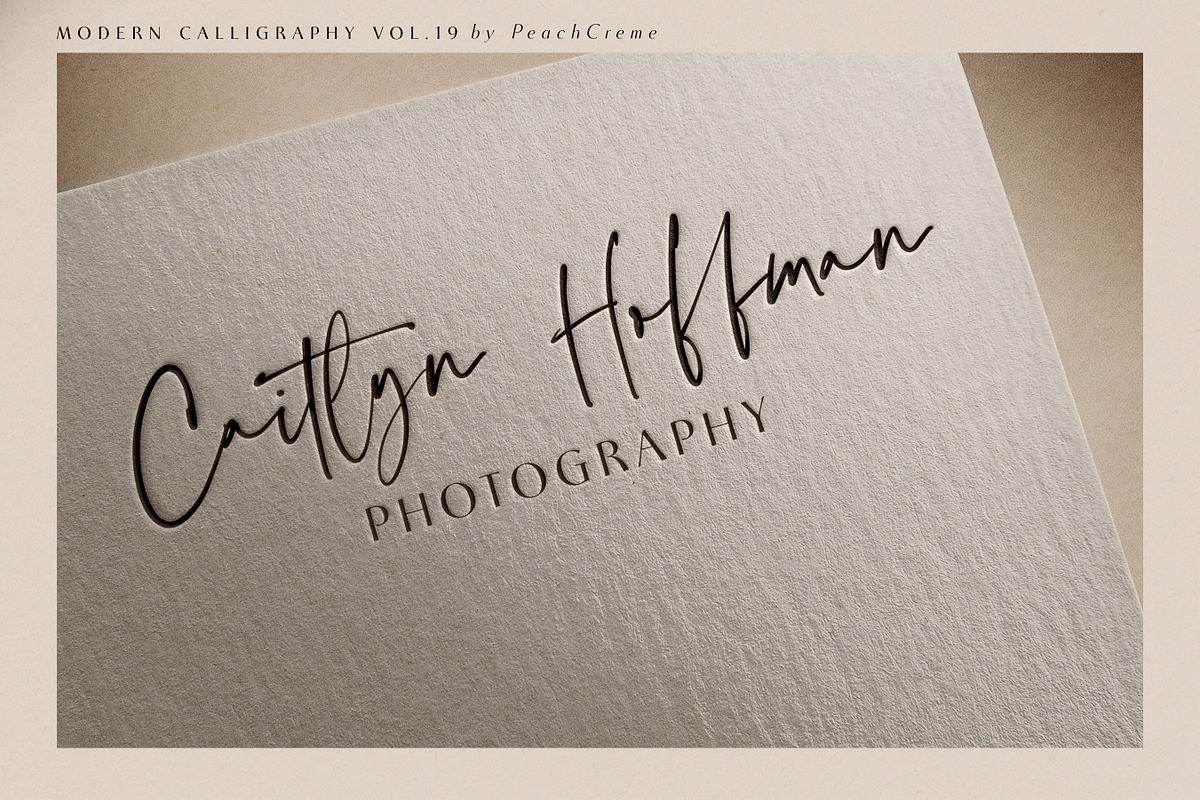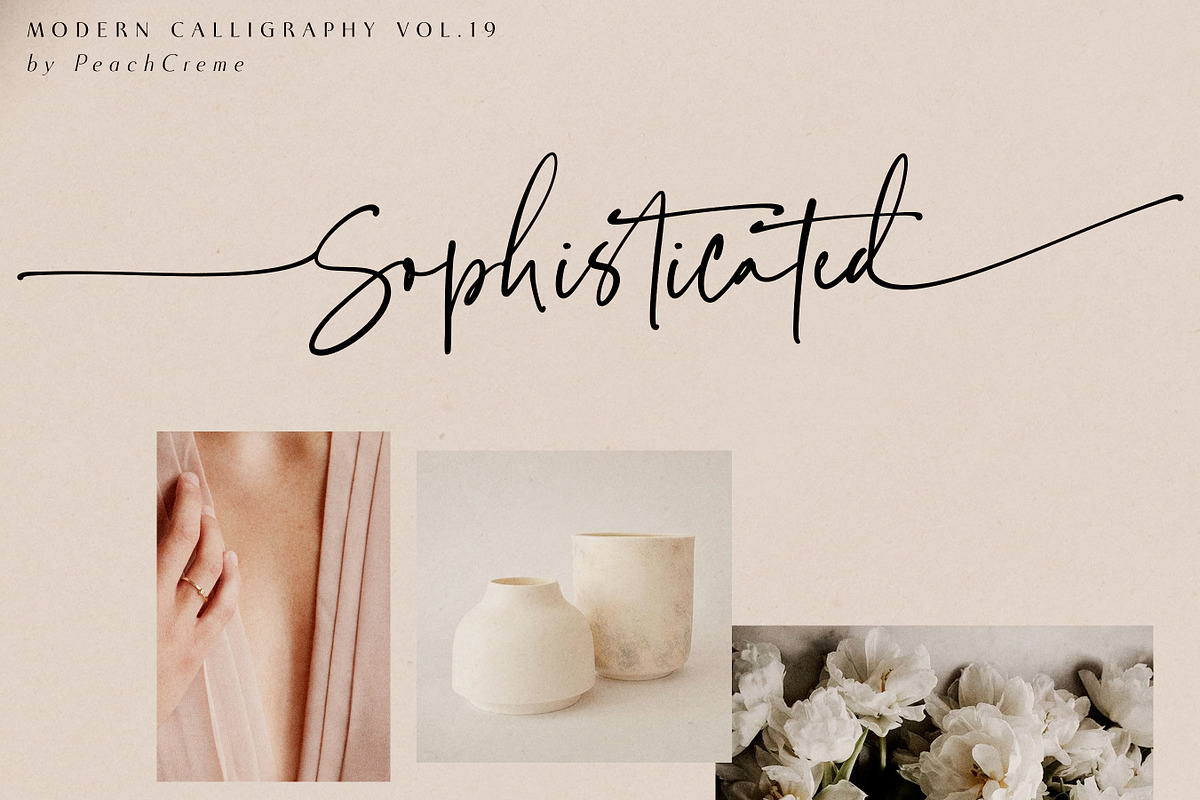
Faustine includes uppercase and lowercase letters, numerals, a large range of punctuation and ligatures. All lowercase letters include beginning and ending swashes. All uppercase letters include beginning swashes, which makes the font look fabulous!